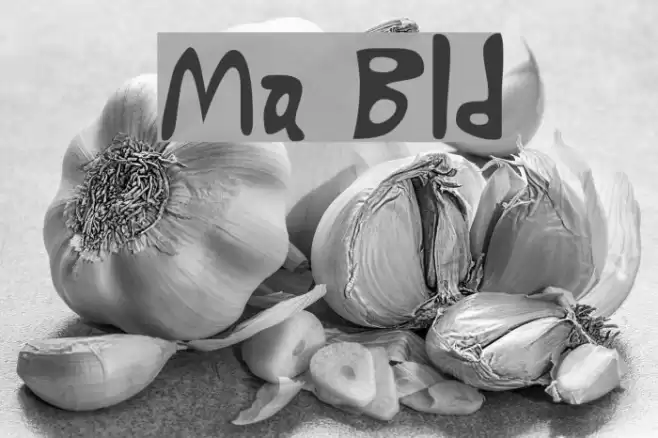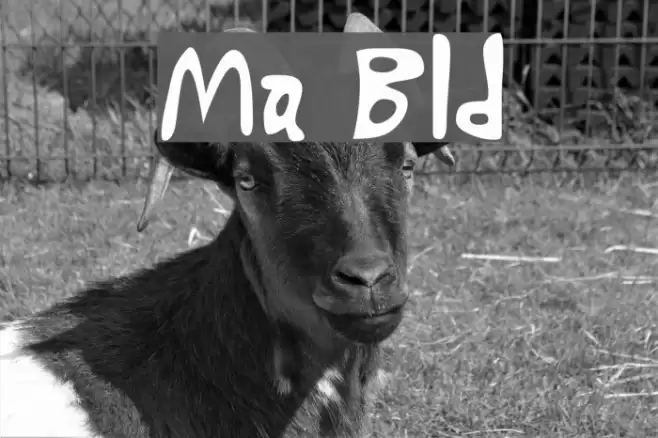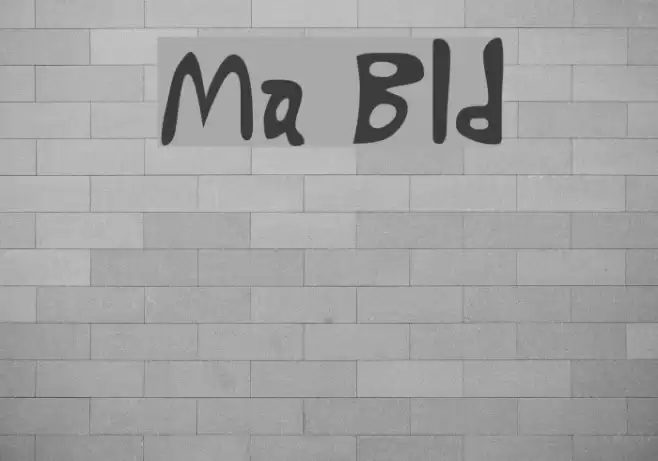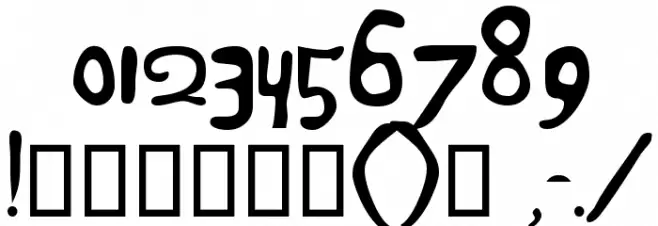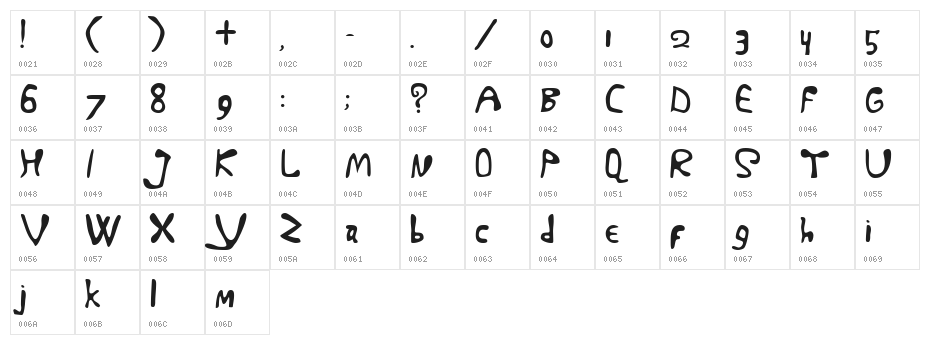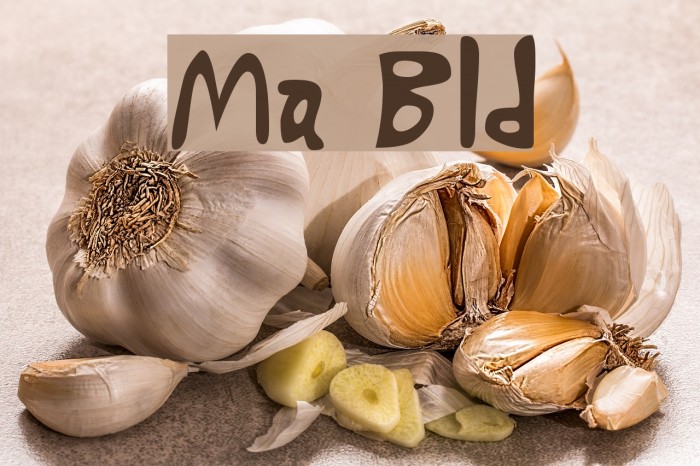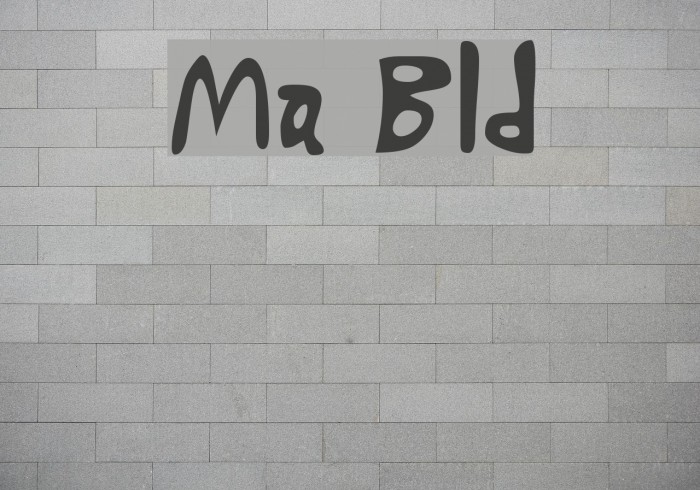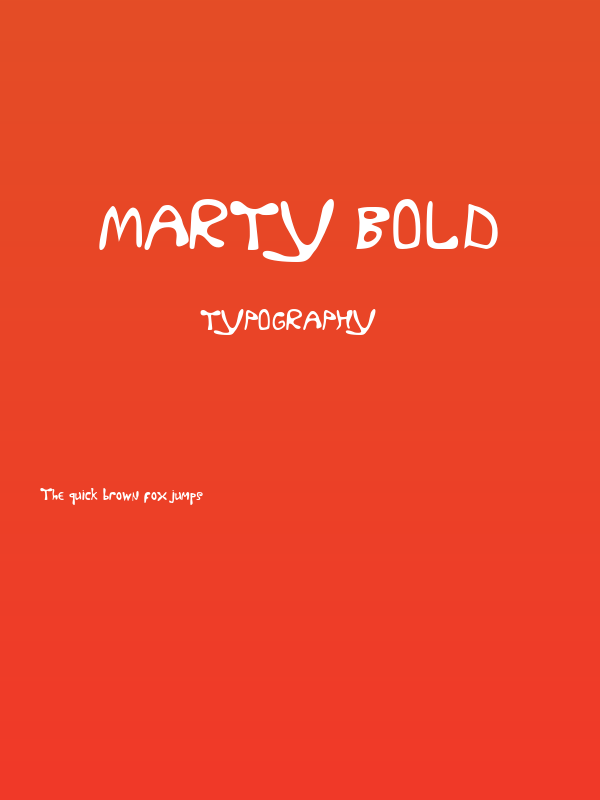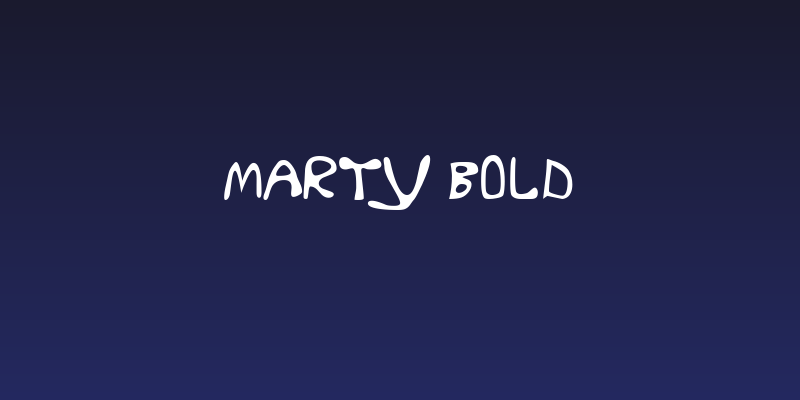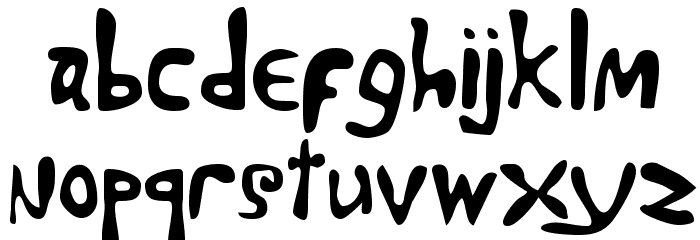
Marty Bold Font
Marty Bold Description
This font features a playful and bold design with a hand-drawn aesthetic. The characters are irregular and slightly whimsical, giving it a unique and informal appearance. The strokes are thick and rounded, contributing to its boldness and making it highly legible. The font has a casual and friendly vibe, suitable for projects that require a touch of creativity and fun. The uppercase and lowercase letters maintain a consistent style, with a slight variation in height and width that adds to its charm. The numbers and special characters follow the same playful theme, ensuring a cohesive look across all text elements.
A bold, playful, and hand-drawn font with a whimsical style from Quirky fonts.
- Proposed Projects: Ideal for children's books, playful branding, casual invitations, and creative posters.
- Overall Style: Playful